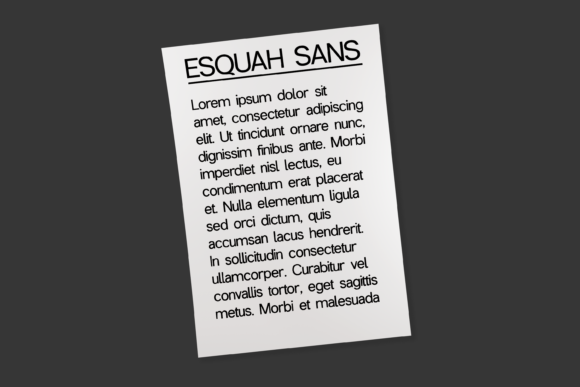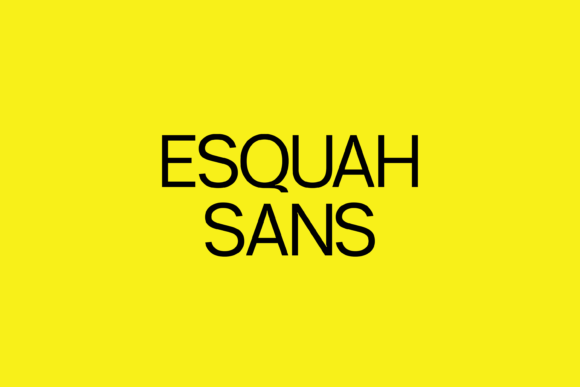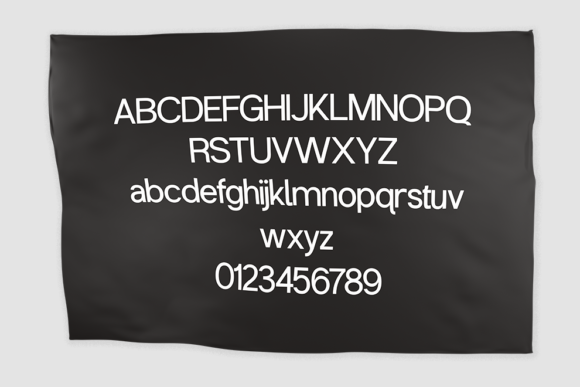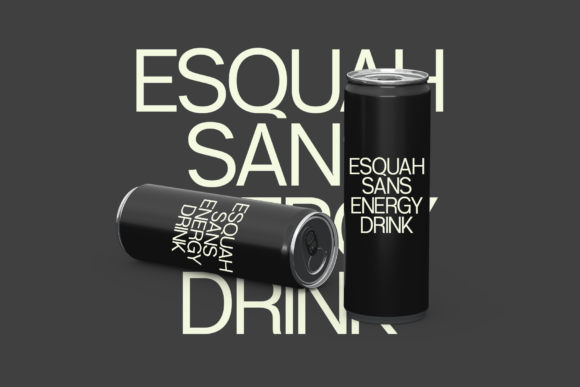
Introducing Esquah Font: The Modern Sans Serif for Creative Projects
Are you tired of using the same old fonts for your design projects? Look no further than Esquah Font, a modern and versatile sans serif font that’s perfect for adding a touch of sophistication to your creative ideas. With its clean lines and sleek aesthetic, Esquah Font is sure to make your projects stand out from the crowd.
What Makes Esquah Font So Special?
Esquah Font is a highly adaptable font that can be matched to an incredibly large set of projects. Whether you’re working on a branding campaign, a website design, or a crafting project, Esquah Font is the perfect choice. Its versatility is due to its simple yet elegant design, which makes it easy to pair with a wide range of other fonts and design elements.
Key Features of Esquah Font
- Modern sans serif design: Esquah Font features a clean and modern sans serif design that’s perfect for creating a professional and sleek look.
- Highly versatile: Esquah Font can be used for a wide range of projects, from branding and advertising to website design and crafting.
- Easy to read: The font’s clean lines and simple design make it easy to read, even at small sizes.
- Pairs well with other fonts: Esquah Font’s neutral design makes it easy to pair with other fonts, allowing you to create unique and interesting typography combinations.
How to Use Esquah Font in Your Design Projects
Esquah Font is incredibly easy to use, and can be incorporated into your design projects in a variety of ways. Here are a few ideas to get you started:
- Branding and advertising: Use Esquah Font as a primary font for your branding campaign, or as a supporting font to add visual interest to your ads.
- Website design: Esquah Font is perfect for use in website design, particularly for headings and titles.
- Crafting and DIY projects: Esquah Font can add a touch of sophistication to your crafting and DIY projects, such as handmade cards, gift tags, and more.
Tips for Getting the Most Out of Esquah Font
Here are a few tips for getting the most out of Esquah Font:
- Experiment with different font sizes: Esquah Font looks great at a wide range of font sizes, so don’t be afraid to experiment and find the perfect size for your project.
- Pair with other fonts: Esquah Font’s neutral design makes it easy to pair with other fonts, so try combining it with different fonts to create unique and interesting typography combinations.
- Use it consistently: To get the most out of Esquah Font, use it consistently throughout your design project. This will help to create a cohesive and professional look.
In conclusion, Esquah Font is a modern and versatile sans serif font that’s perfect for adding a touch of sophistication to your design projects. With its clean lines, simple design, and high level of versatility, Esquah Font is sure to become a go-to font in your design toolkit. So why wait? Download Esquah Font today and see how it can elevate your creative ideas to the next level!